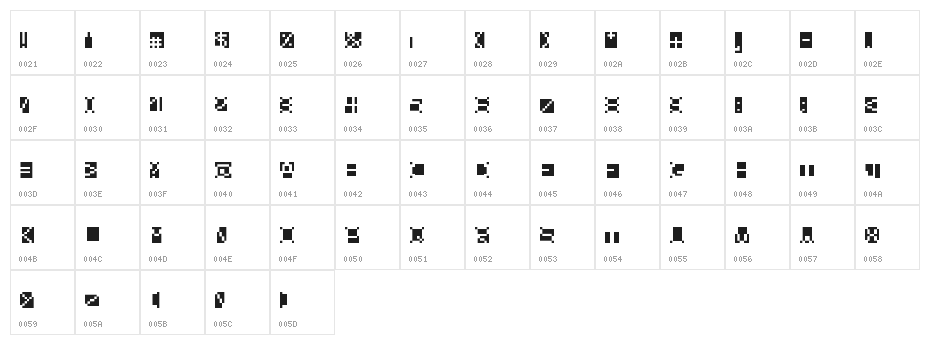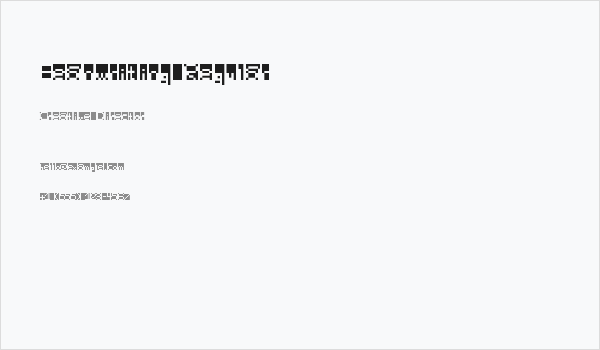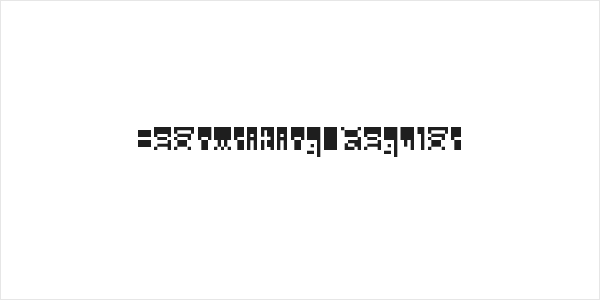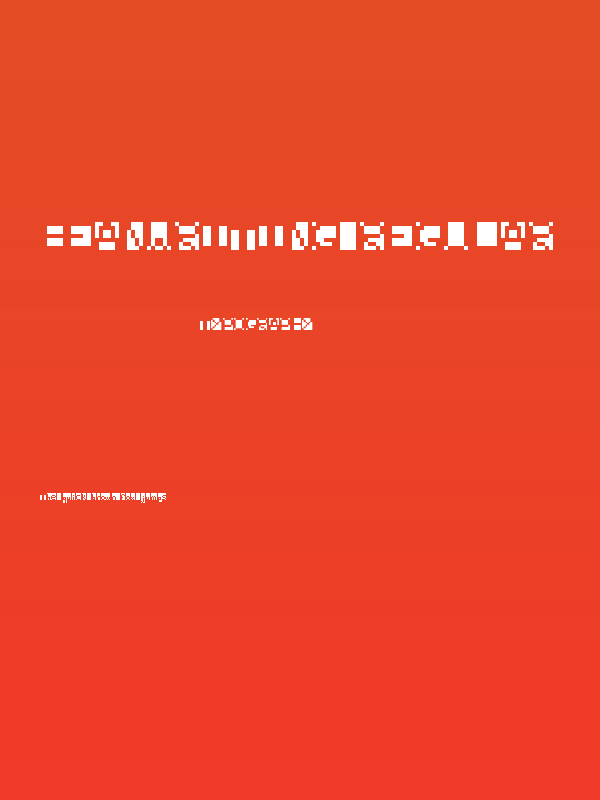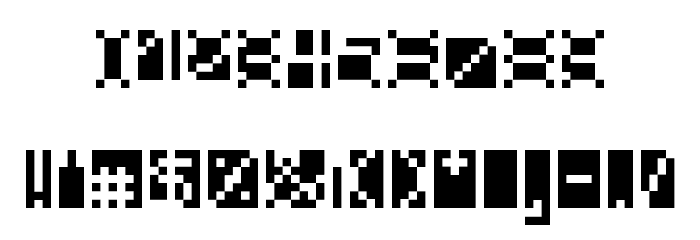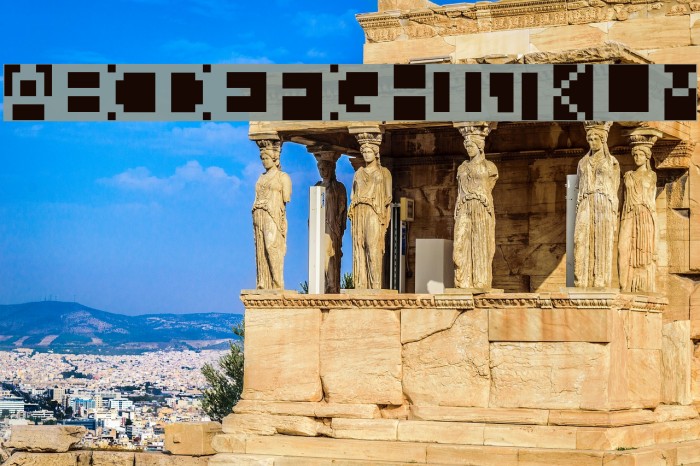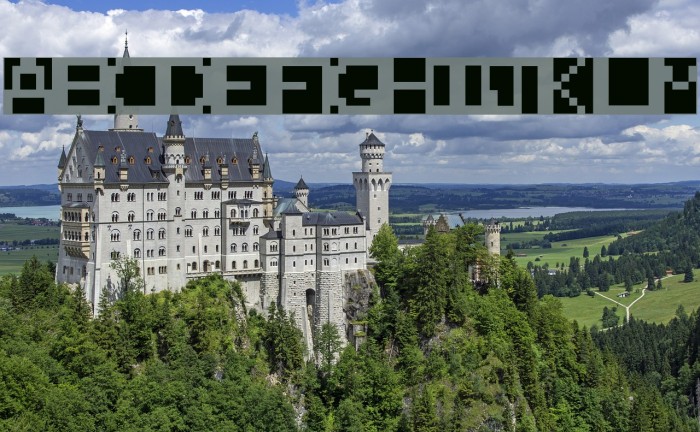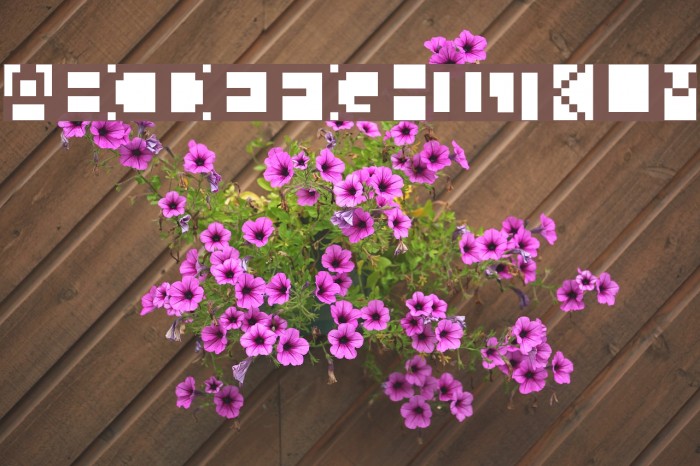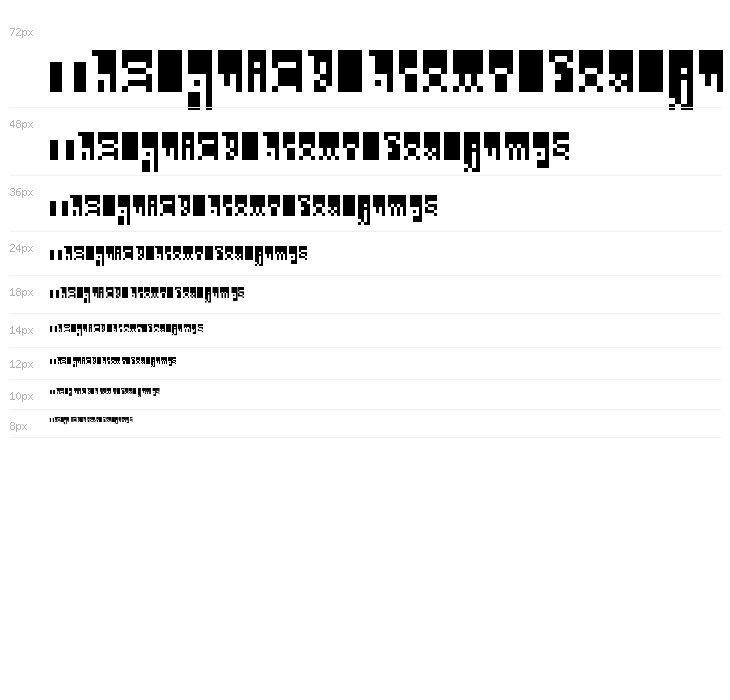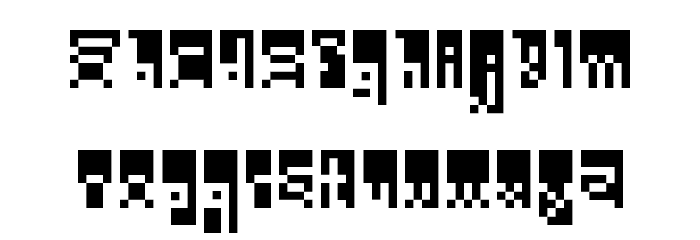
Beanwriting Regular Font
This font features a unique, pixelated style that resembles digital or retro video game aesthetics. Each character is composed of small square blocks, giving it a distinct, grid-like appearance. The design is bold and eye-catching, making it suitable for projects that aim to evoke a sense of nostalgia or digital culture. The characters are uniformly spaced, maintaining a consistent rhythm across the text. Despite its blocky nature, the font manages to retain legibility, with each letterform clearly distinguishable. The overall look is playful and modern, yet with a nod to vintage computing.
| Overall Style | Modern, Vintage |
| Proposed Projects | Ideal for video game design, digital art projects, retro-themed posters, and tech-related branding. |